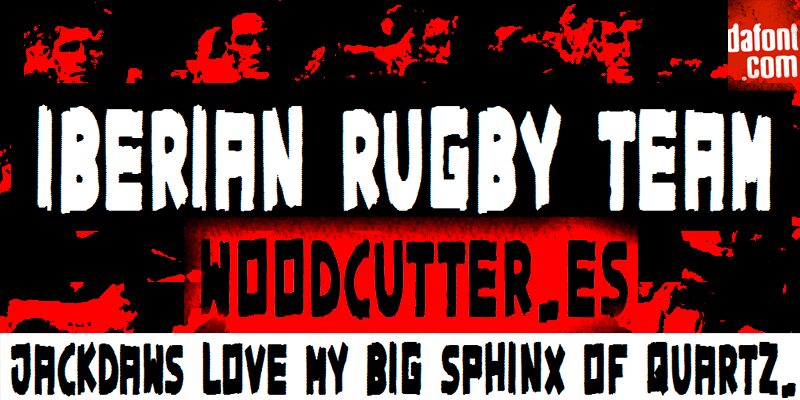
Iberian Rugby Team
Iberian Rugby Team font by Woodcutter is a bold, condensed font characterized by its rugged, uneven texture. Its eroded finish provides a modern grunge aesthetic that’s ideal for showcasing an energetic vibe.
This free display font makes a great choice for different sports projects including game-related posters and visualizations of jerseys or other team apparel designs. Other uses include flyers, T-shirt prints, book covers, newspaper advertisements, titles in sport magazines etc.